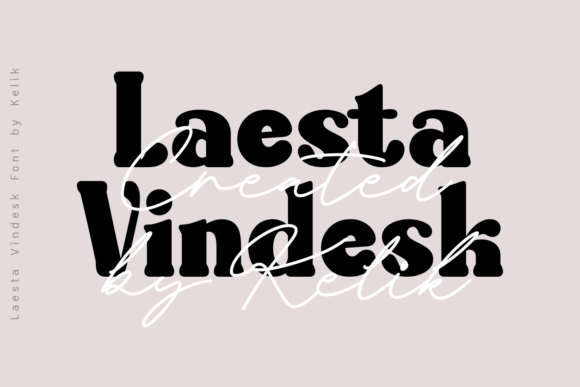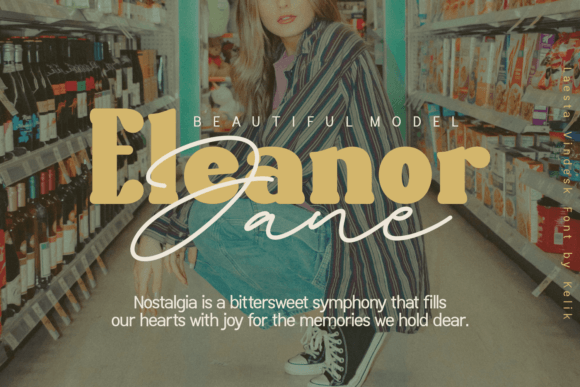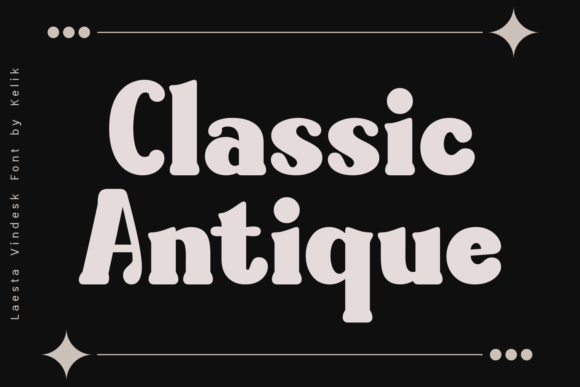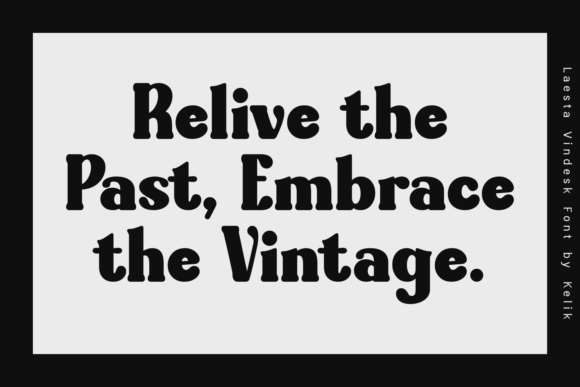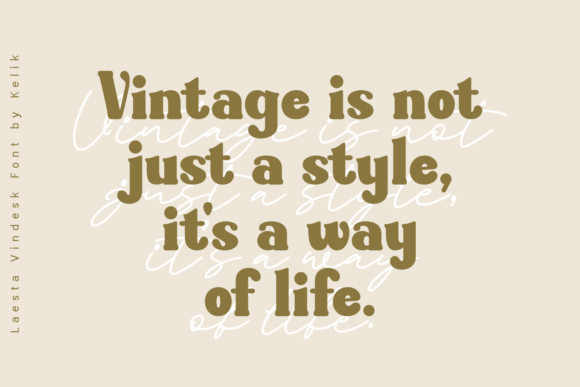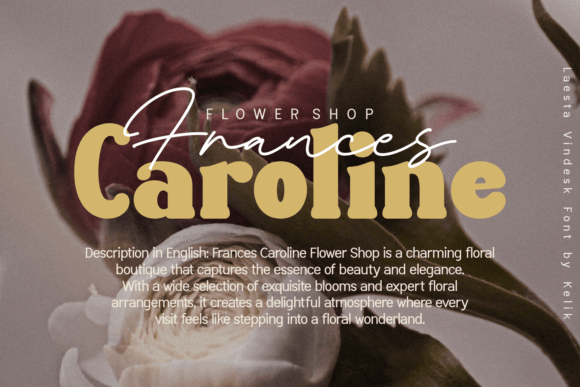
Introduction to Laesta Vindesk Font Font
Fonts play a crucial role in design, and the Laesta Vindesk Font font is a typeface that brings both character and versatility to any project. Whether you’re working on a branding project, a website, or a print design, the Laesta Vindesk Font font offers a unique style that can elevate your work.
Laesta Vindesk is an extraordinary modern retro display font that exudes timeless charm.
With its perfect balance of vintage aesthetics and contemporary design elements, this font captures the essence of nostalgia while adding a touch of sophistication Laesta Vindeskβs clean lines and distinctive letterforms make it ideal for creating eye-catching headlines, logos, and branding materials that demand attention.
The Laesta Vindesk Font font is more than just a typeface β it’s a design tool that helps you communicate your message with style and clarity. Its unique character set and versatile design make it suitable for a wide range of applications, from elegant invitations to bold headlines.
With its carefully crafted letterforms and balanced proportions, the Laesta Vindesk Font font ensures readability and visual appeal across all mediums.
What makes Laesta Vindesk Font font special?
The Laesta Vindesk Font font stands out with its unique design, exceptional readability, and versatility across various design applications.